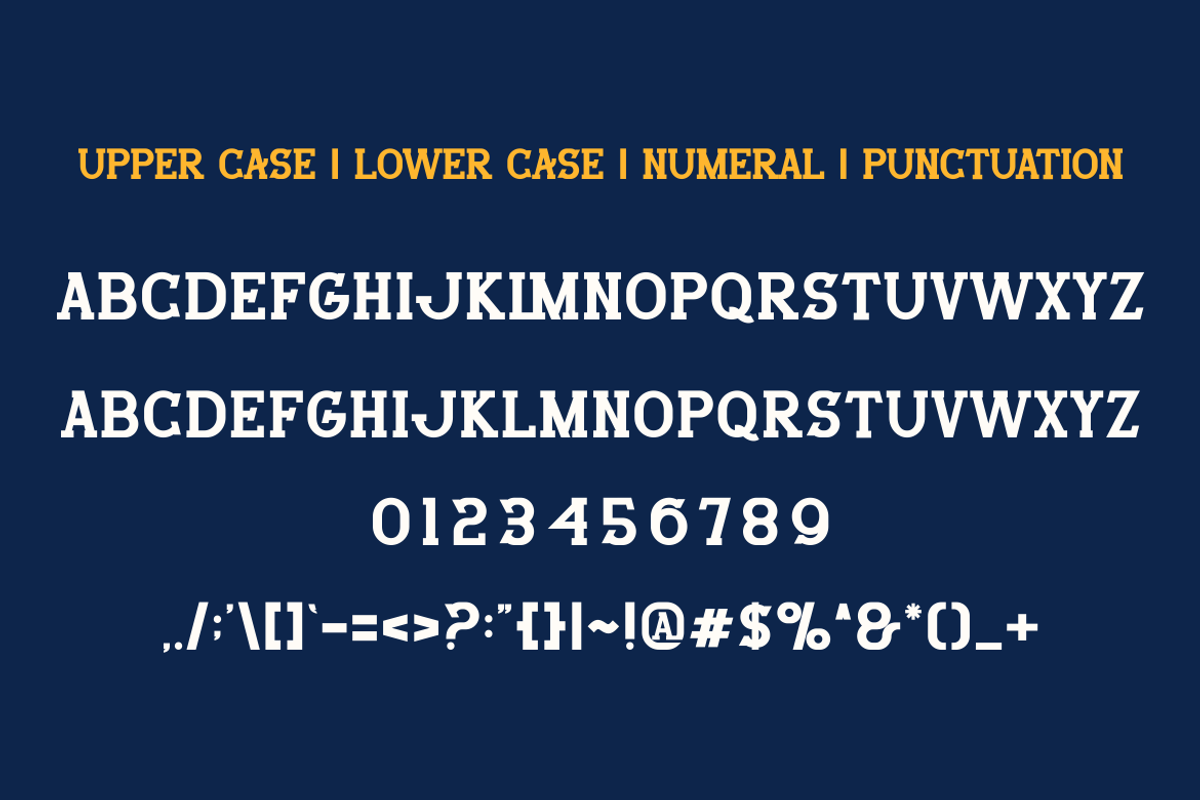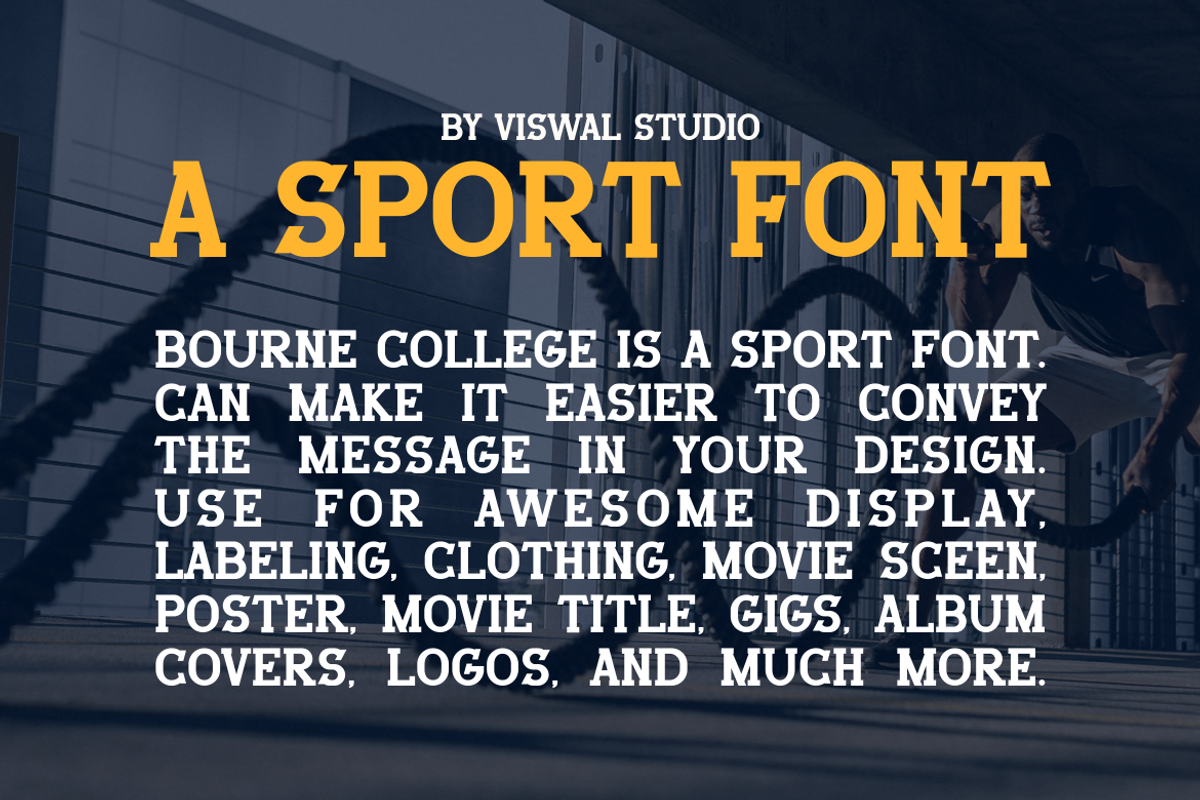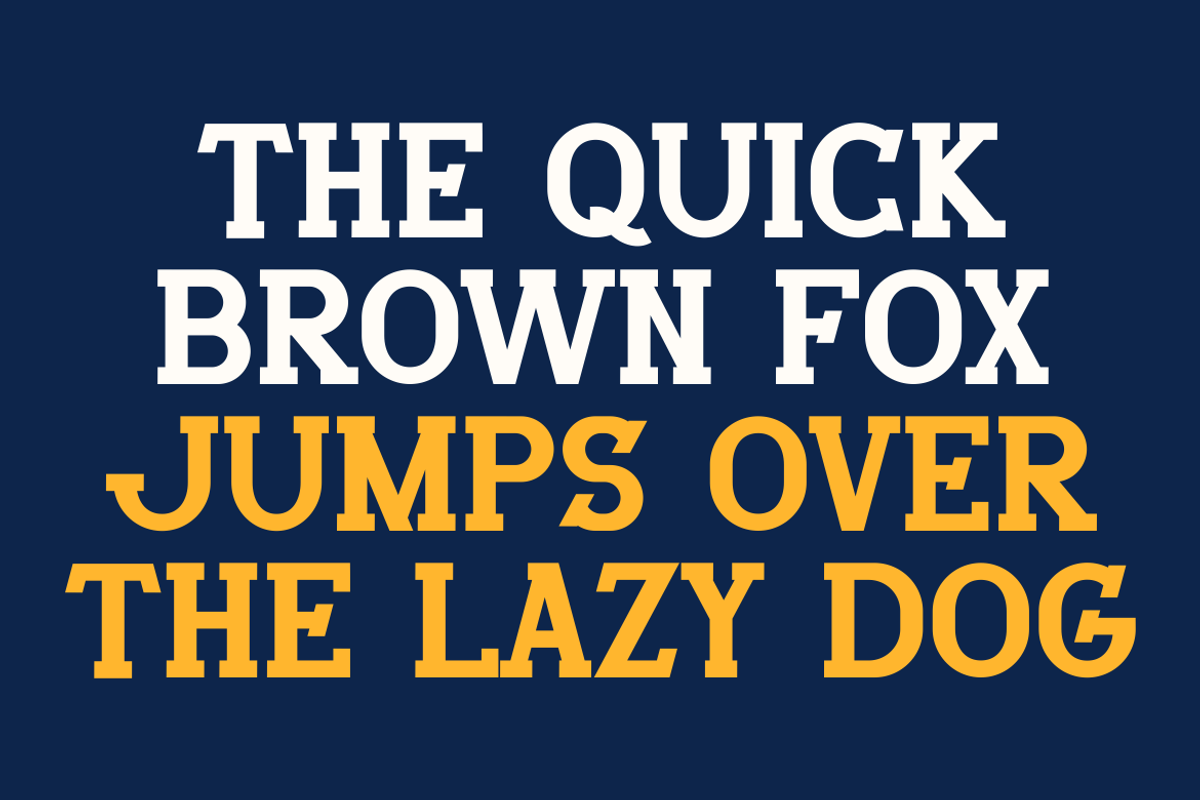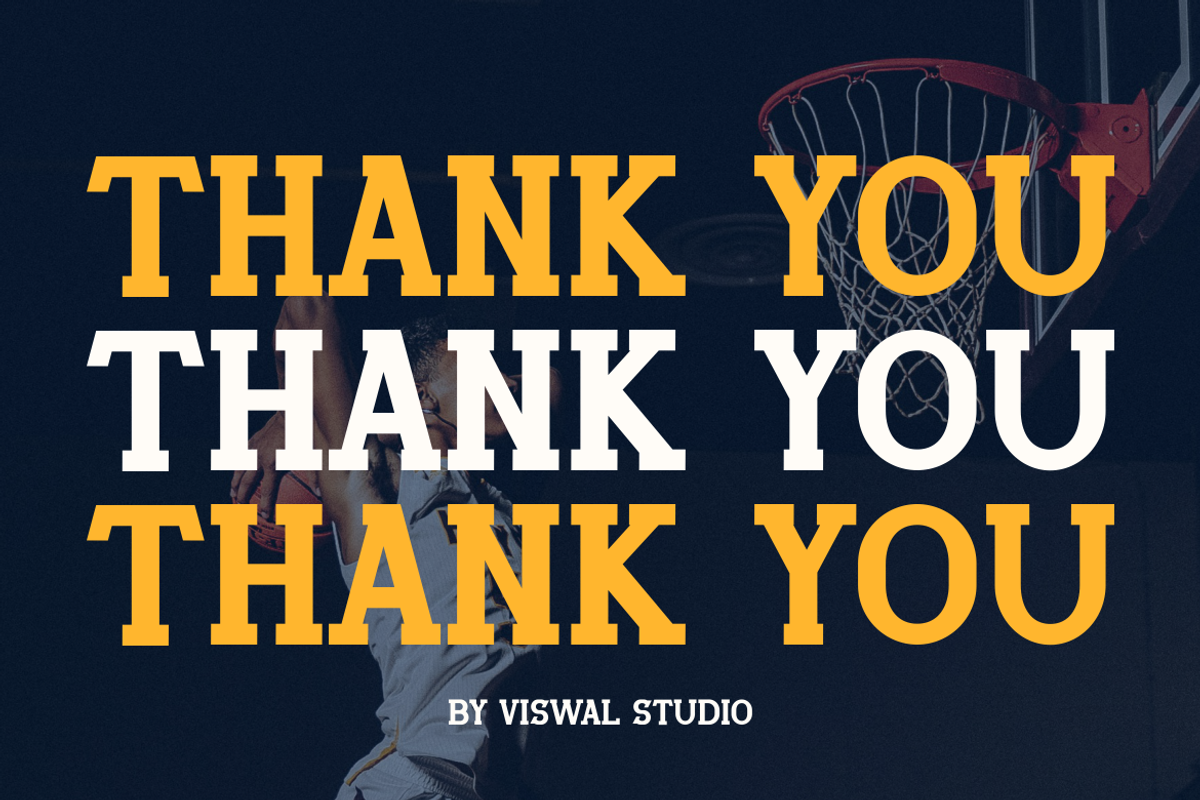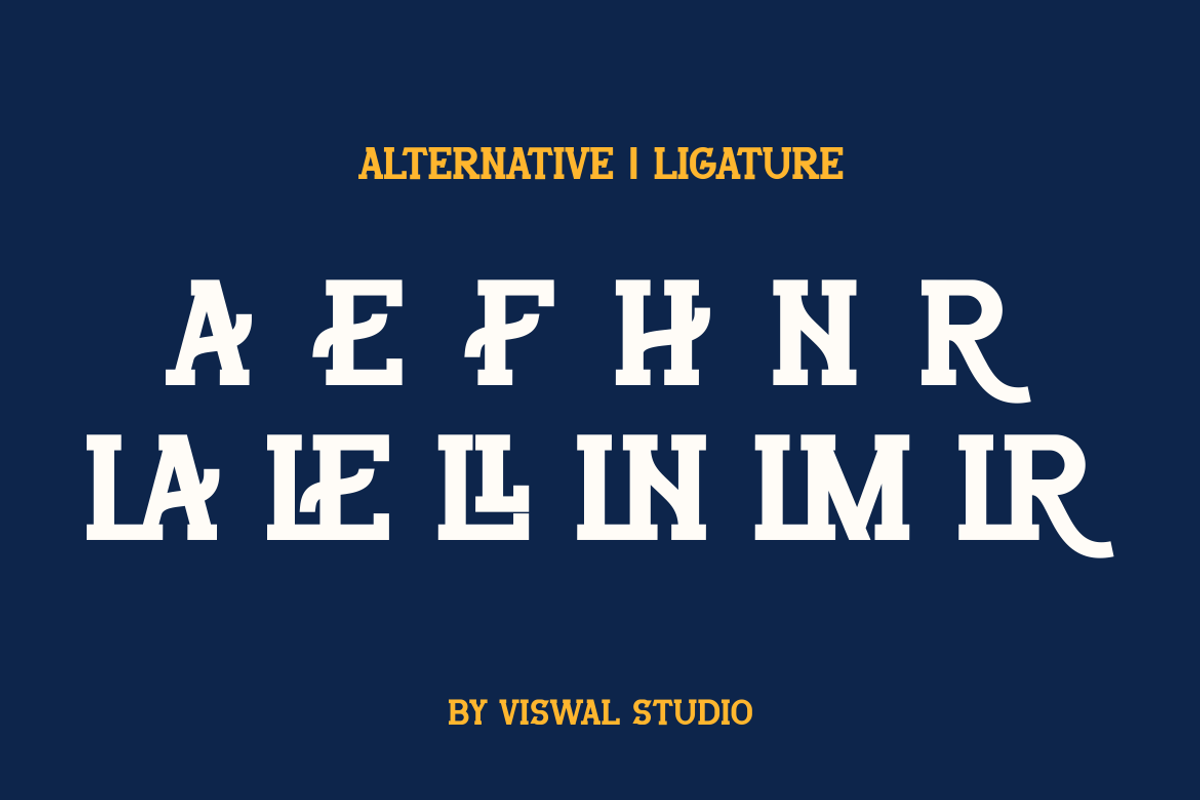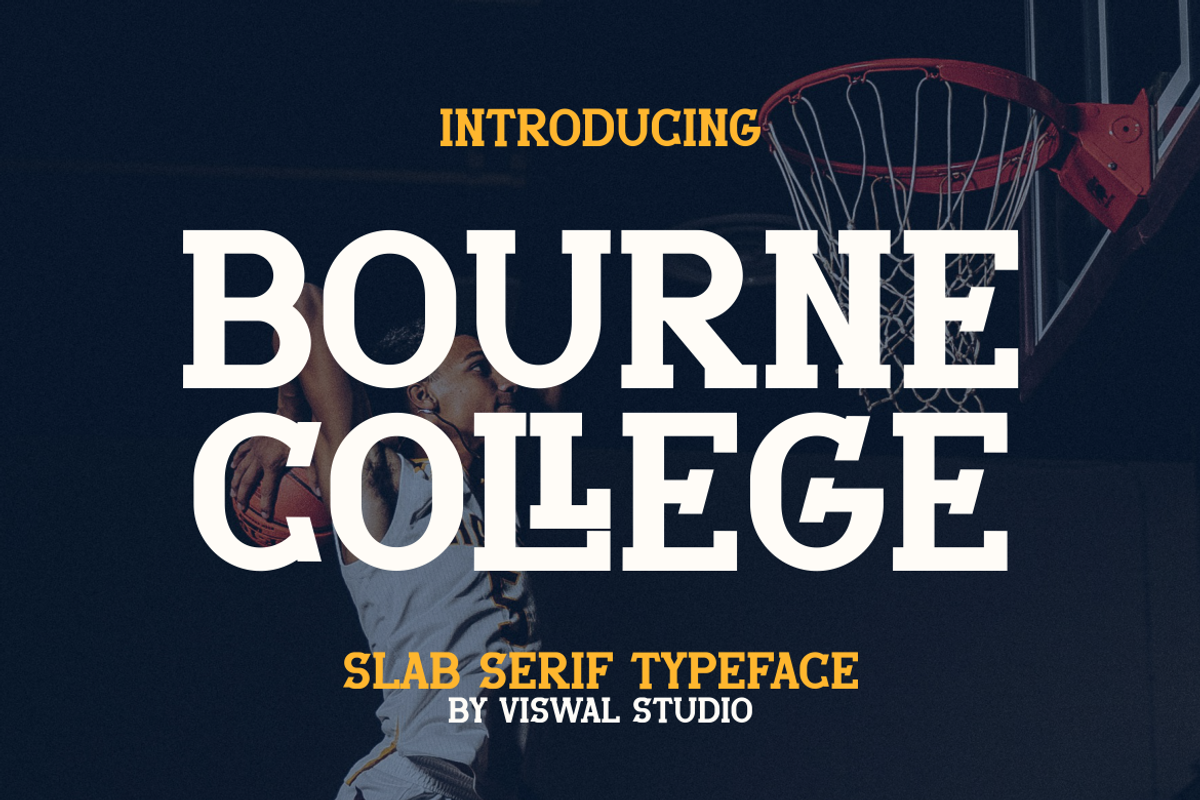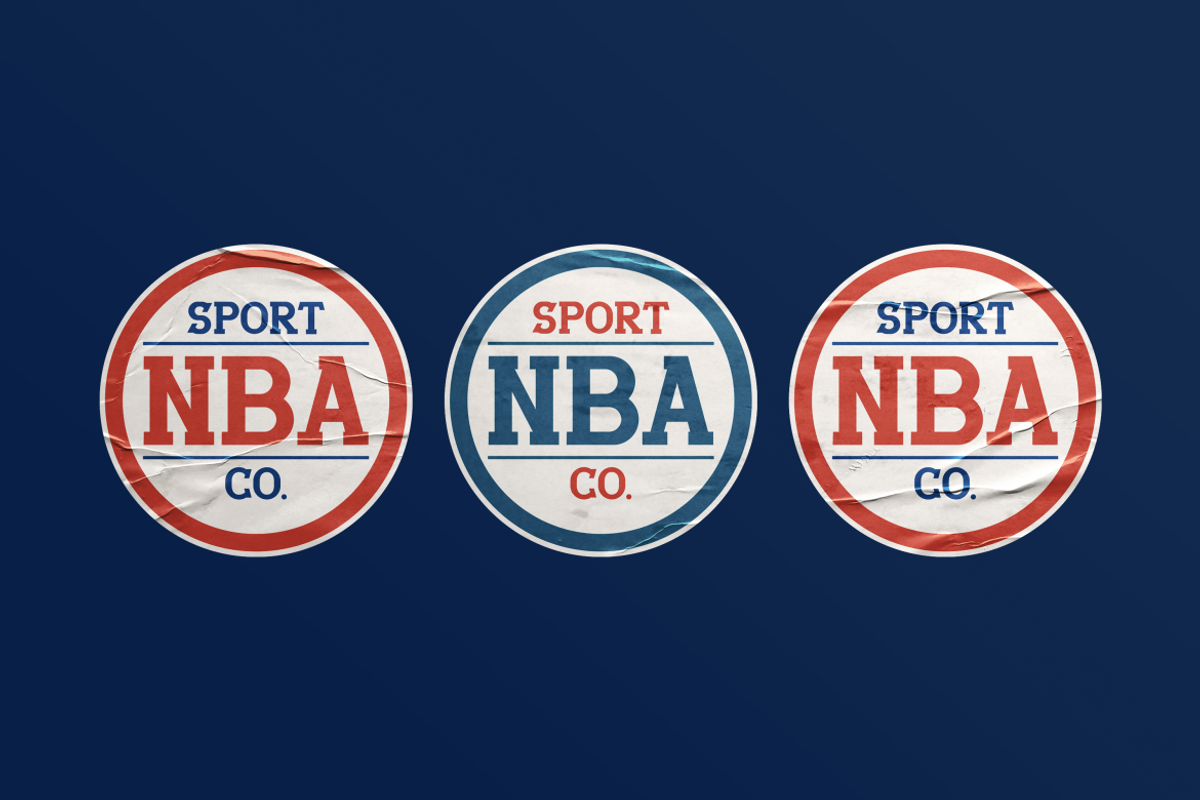
Bourne College - Slab Serif Font
Presenting Bourne College Is A Slab Serif Font.
Can Make It Easier To Convey The Message In Your Design. Font Is Suitable For Logo, Labels, Badge, Branding, Magazine, Poster, Title, Gigs, Covers And Etc. Our Fonts Have Uppercase & Lowercase, Numeral & Punctuation, And Opentype Features. For Amazing Designs You Can Mix With Other Fonts As A Complement.